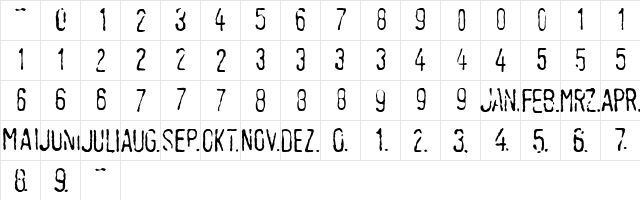
LinotypeTagesstempel Mager Regular
| Foundry | Linotype Library GmbH or ist affiliated Linotype-Hell companies |
Design Context for LinotypeTagesstempel Mager Typeface
LinotypeTagesstempel Mager is a composed and adaptable typeface that performs quietly and consistently across a wide range of design contexts.